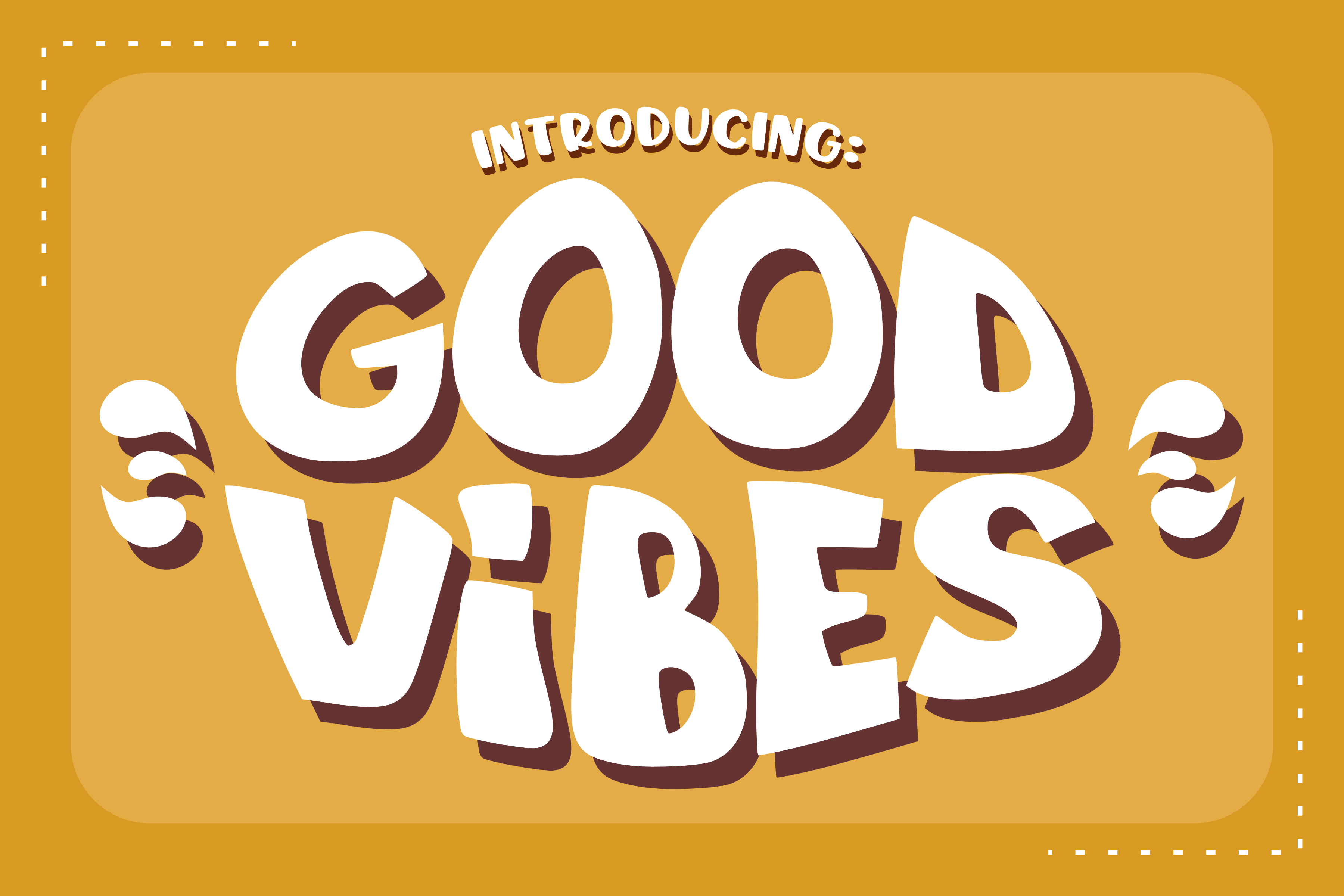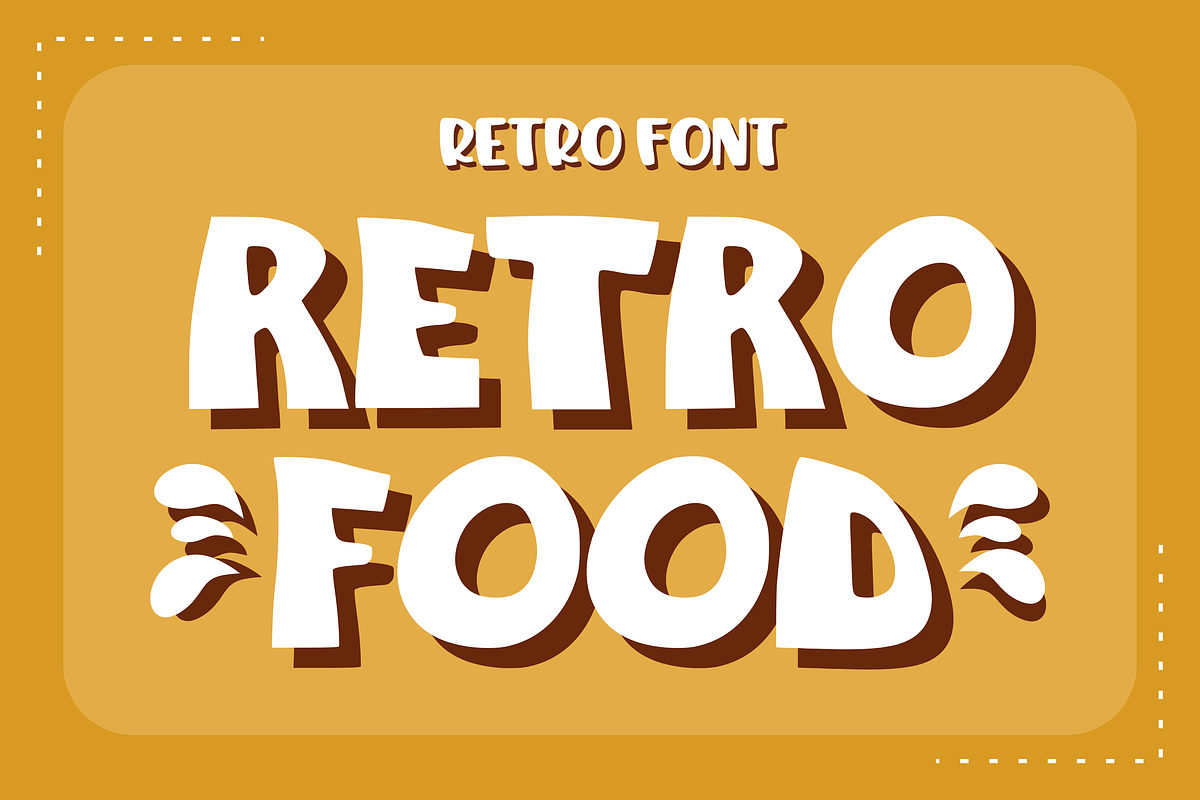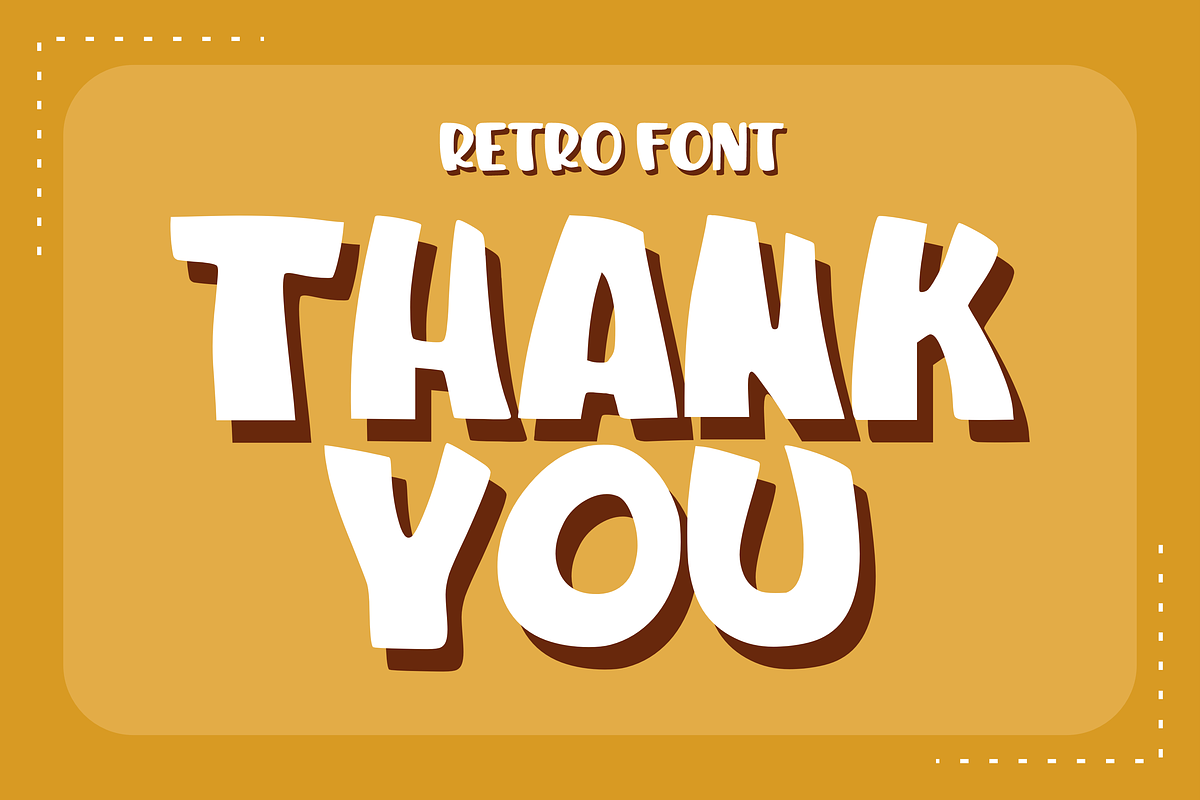
Good Vibes - Retro Font Types
Good Vibes is a Retro font with a classic style. Inspired by Italian typefaces and typography, anything written with this font is instantly recognizable and will catch the eye. This font has a unique shape where each corner is stiffer and more rounded. Making it suitable for classic Beverage Brands. Use this display font to add a special retro touch to any design idea you can think of.